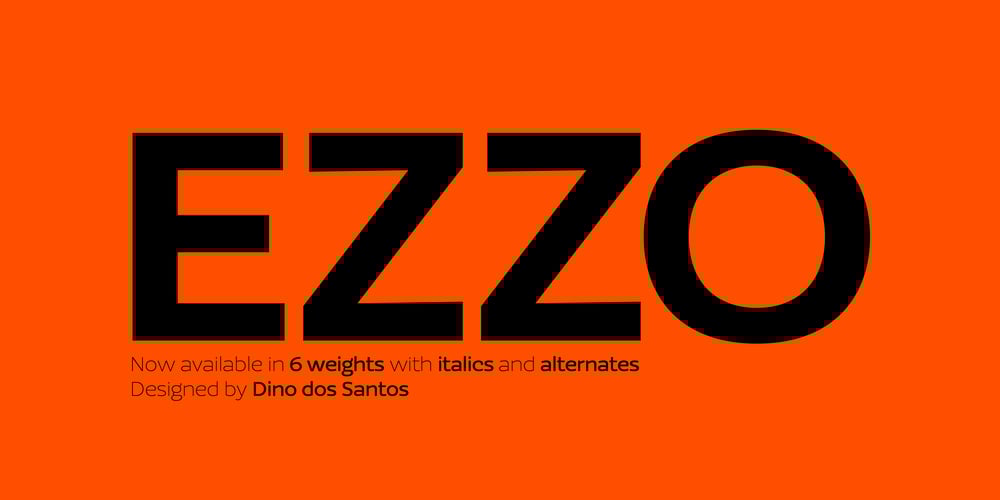
Ezzo
Ezzo font
Ezzo Font Family was designed by Dino dos Santos and published by Monotype. Ezzo contains 18 styles and family package options. First designed for a design bureau, Ezzo is now available in 6 weights with italics and alternates. Includes plenty of OpenType features, like SmallCaps, Alternates, Ligatures and Swashes.